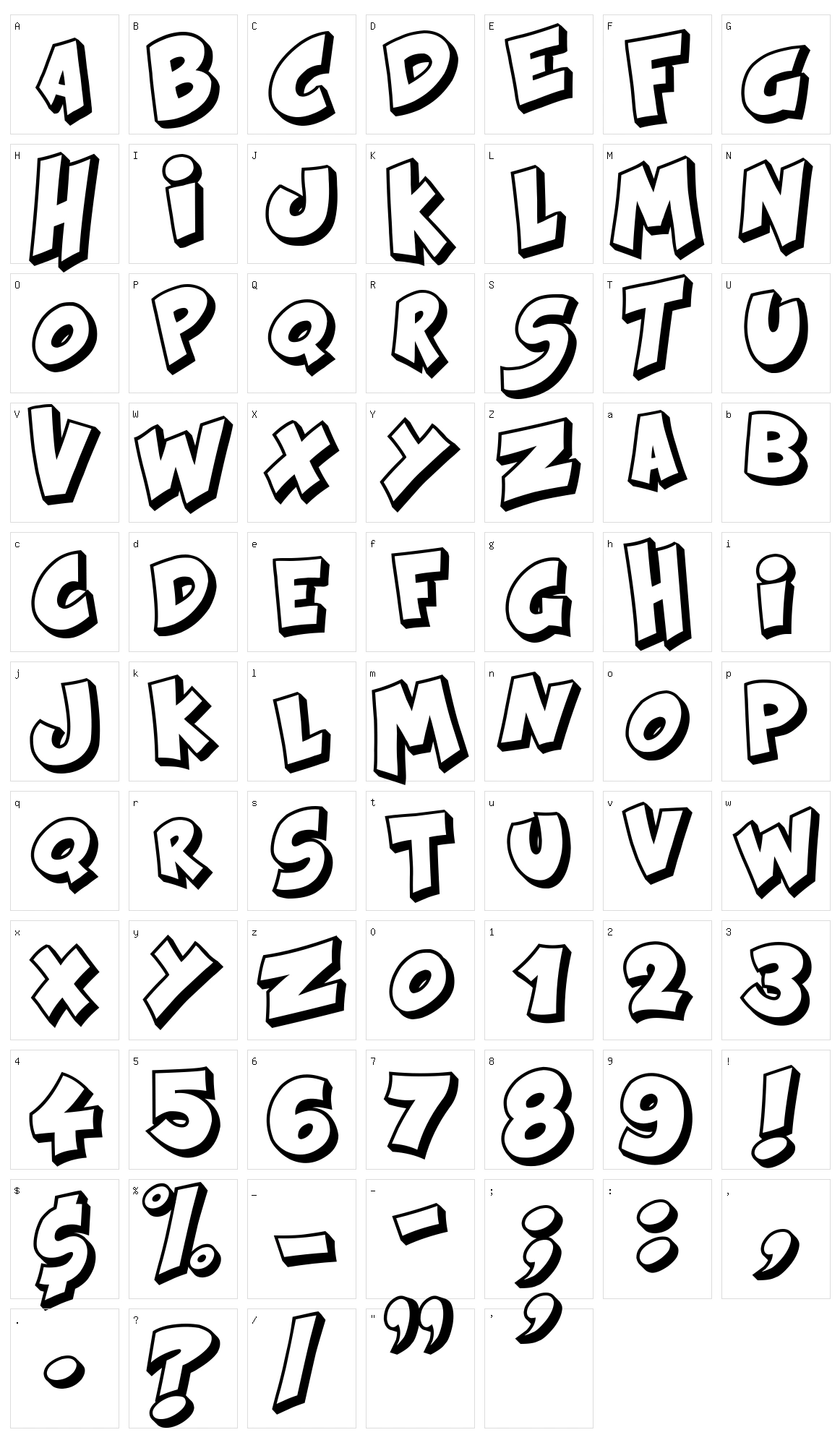
The free font Kraash is carefully designed by imagex, showcasing a thoughtful balance of creativity and usability and falls under the Cartoon font style. When you download the ZIP file, it contains only 46.65 KB of font files, making it lightweight and quick to download. Please review the license details below to understand permitted usage and distribution rights. If license information is not available, we recommend using this font for personal projects only or contacting the author directly for commercial usage permissions.